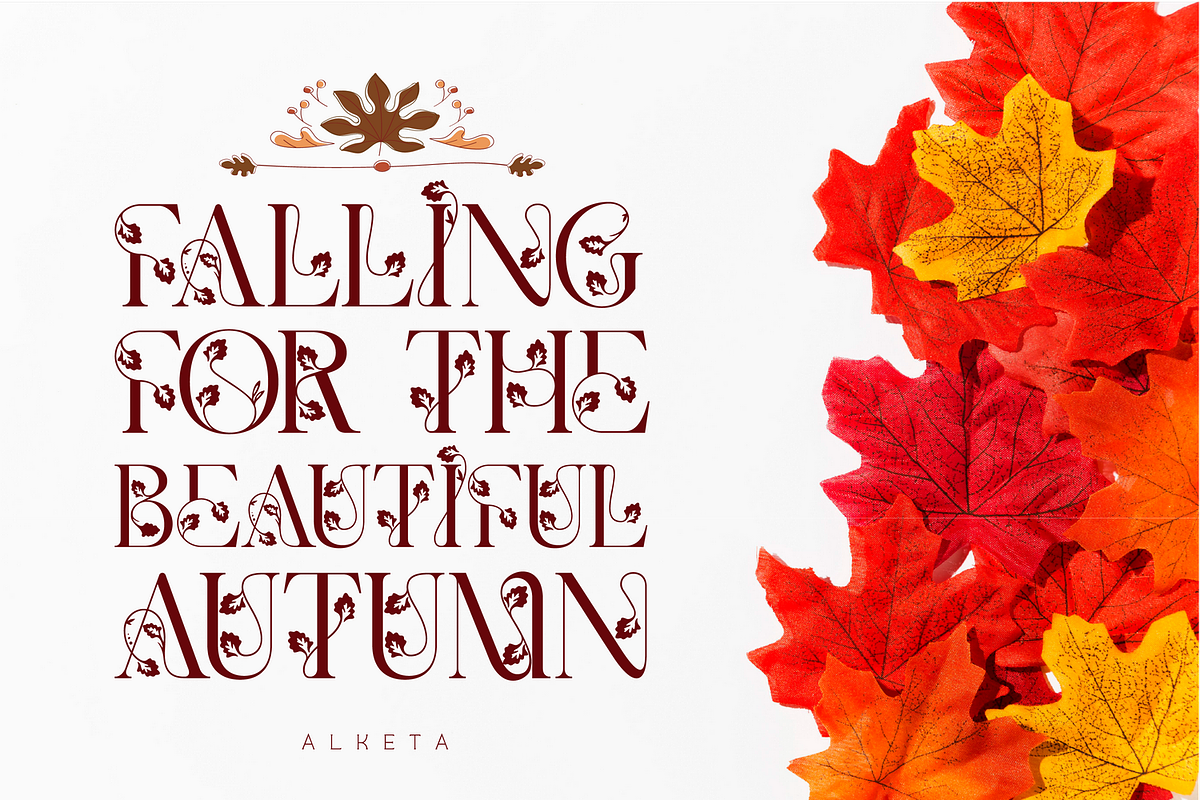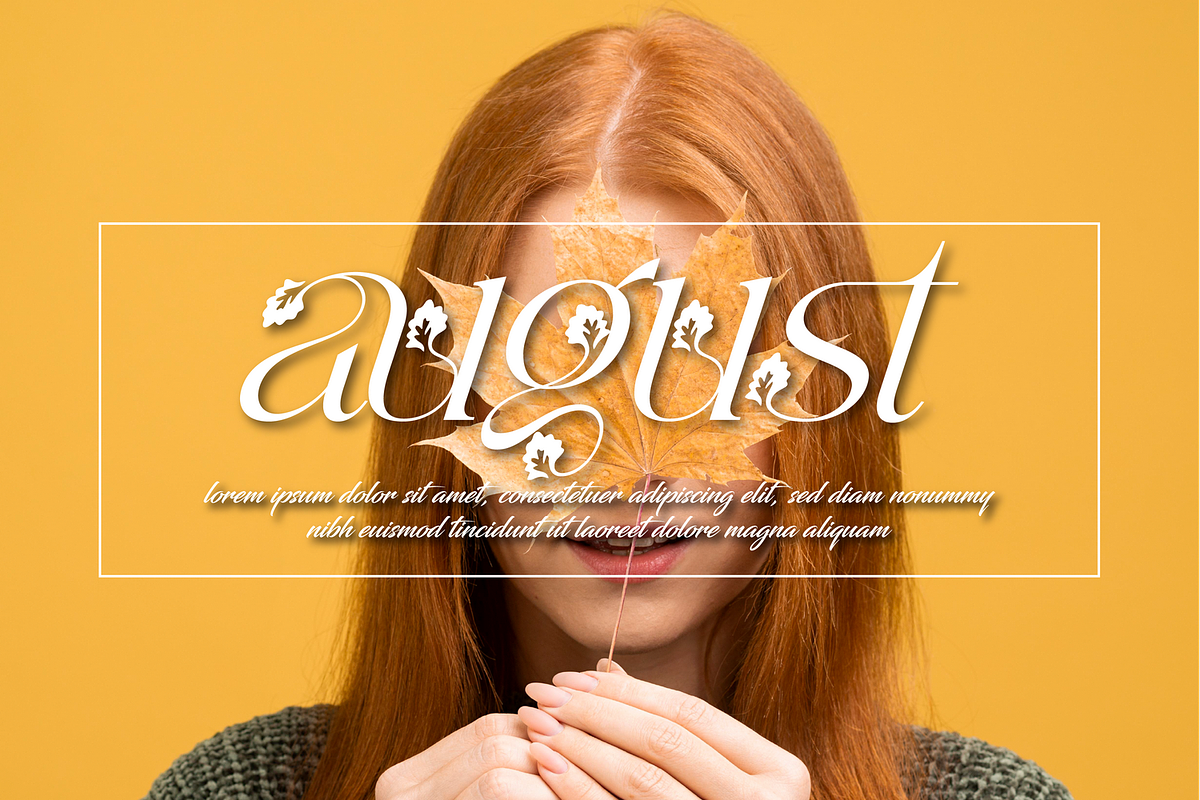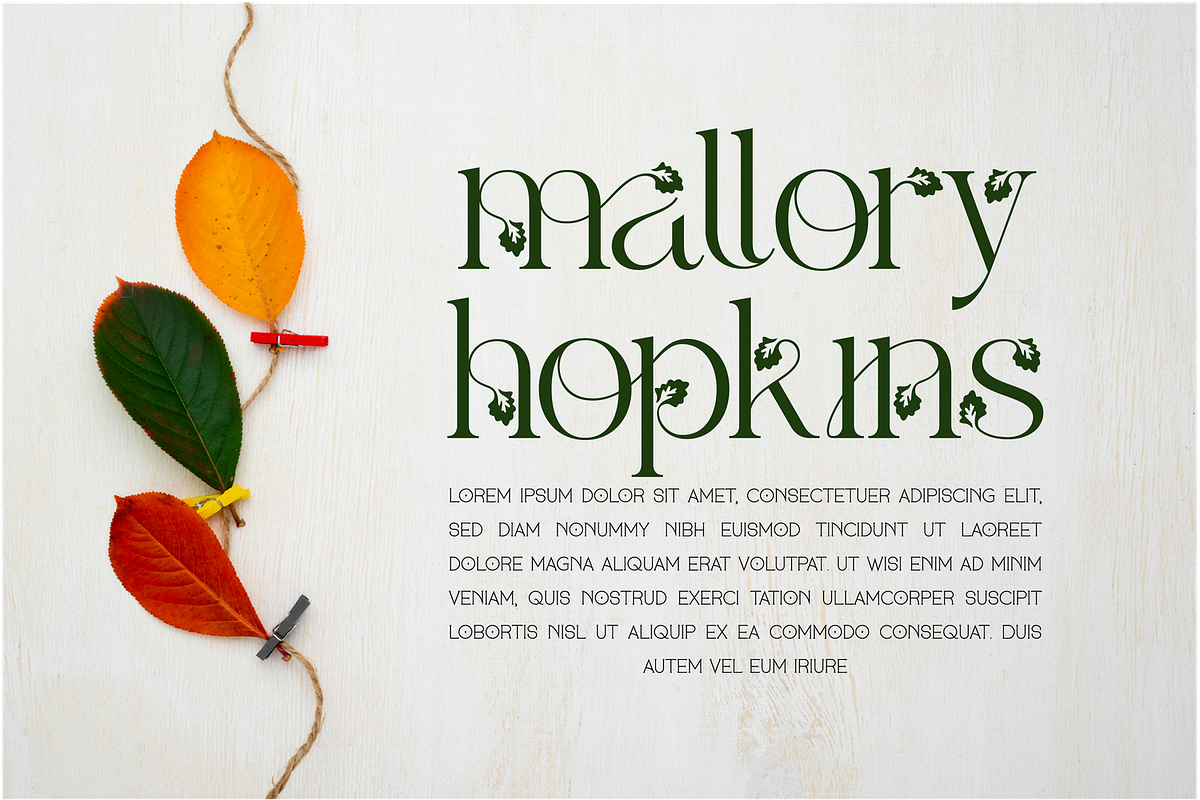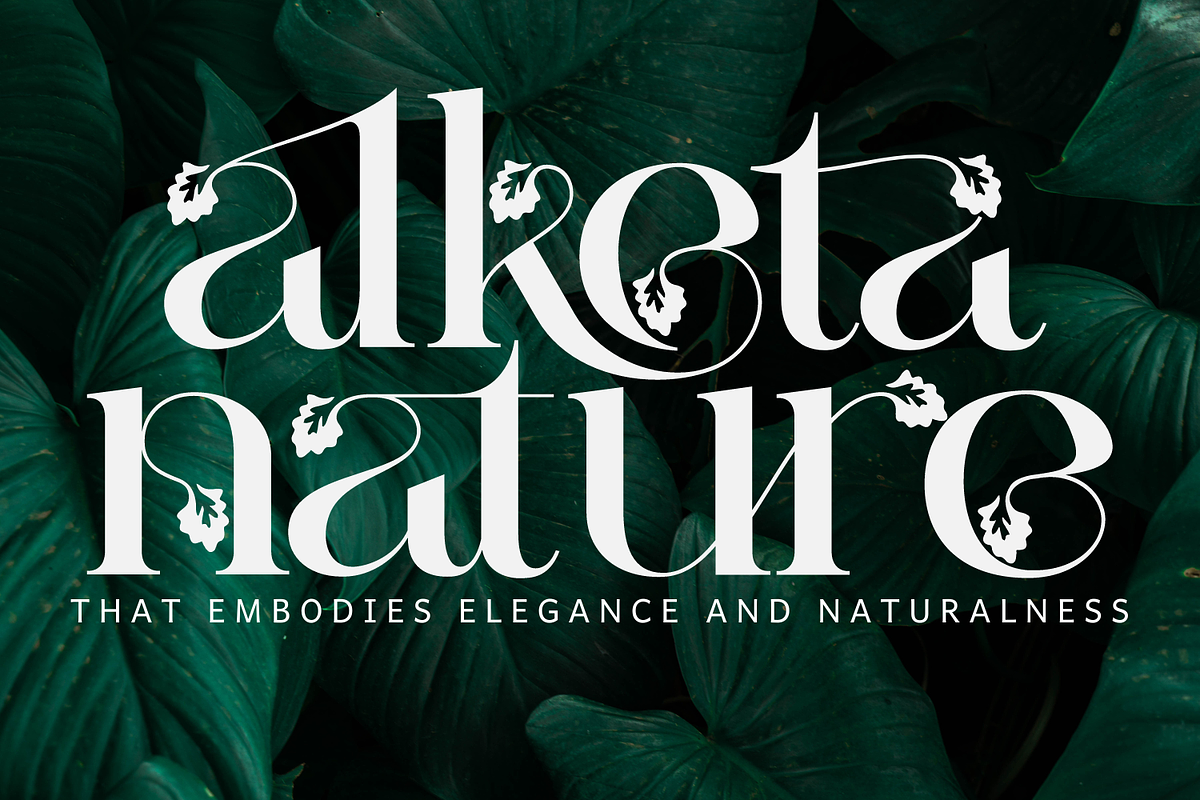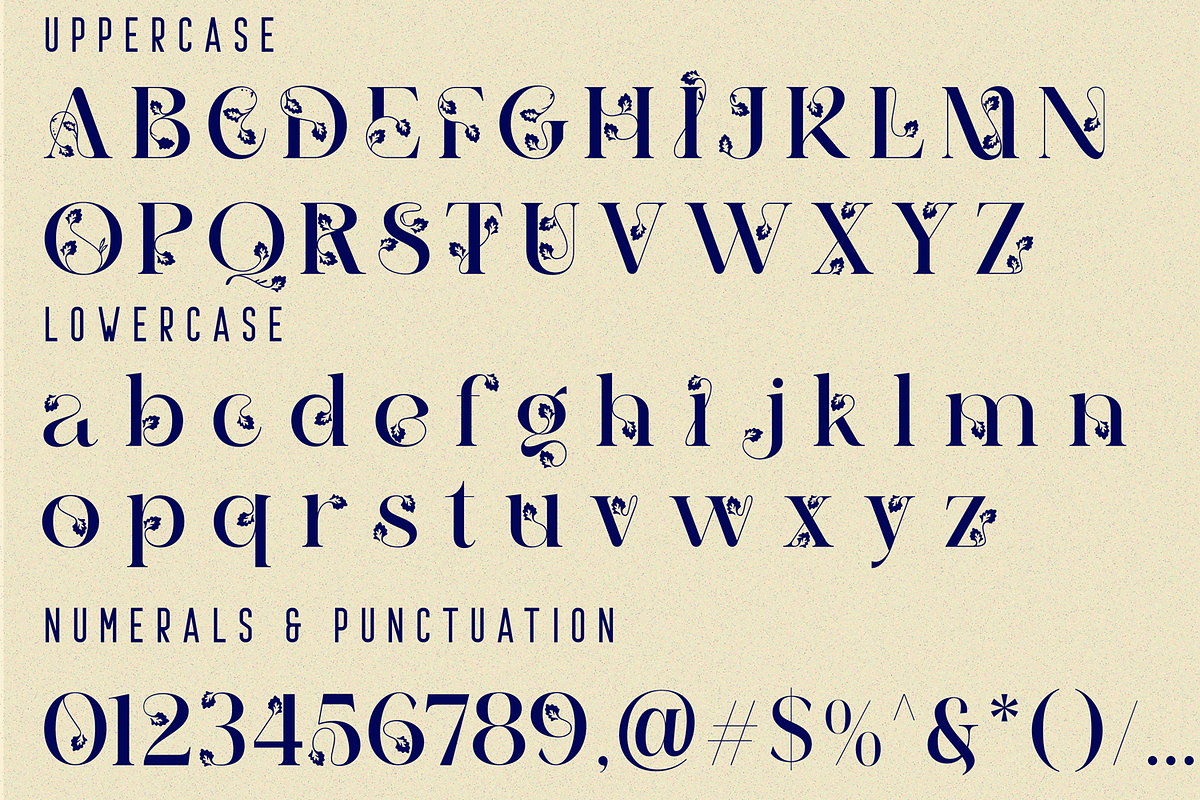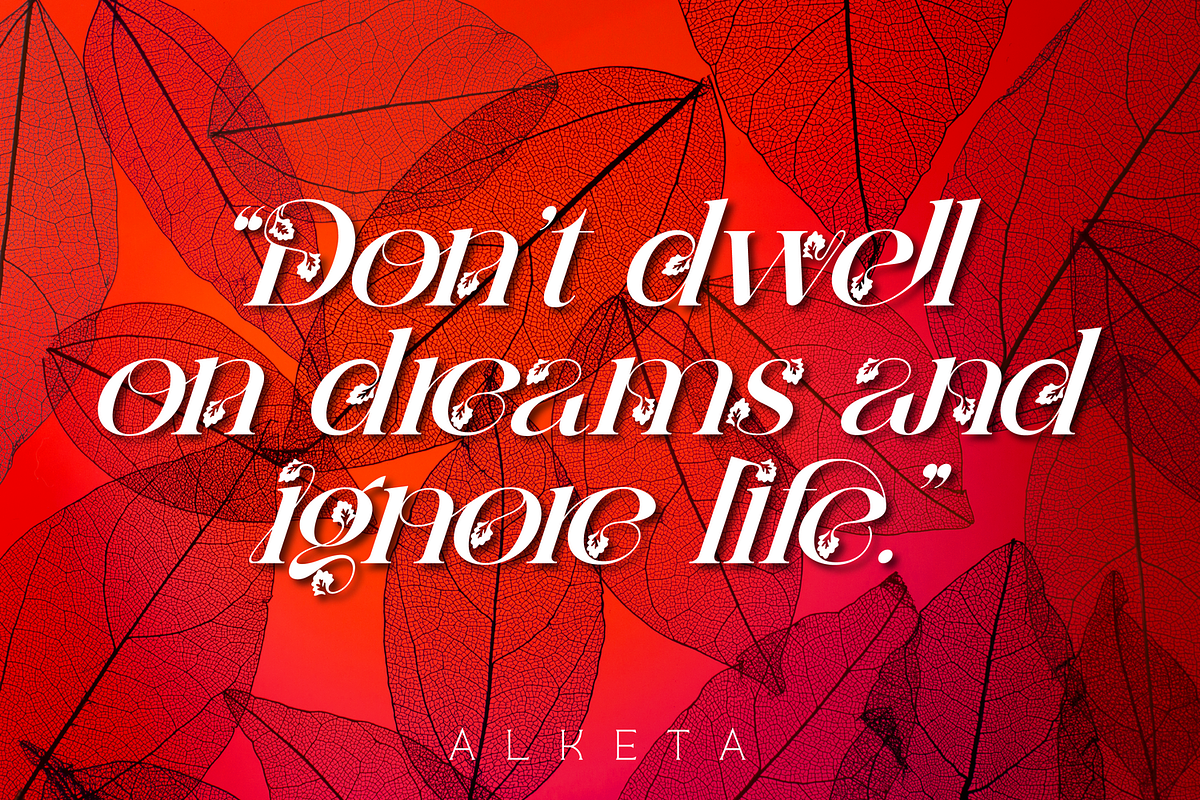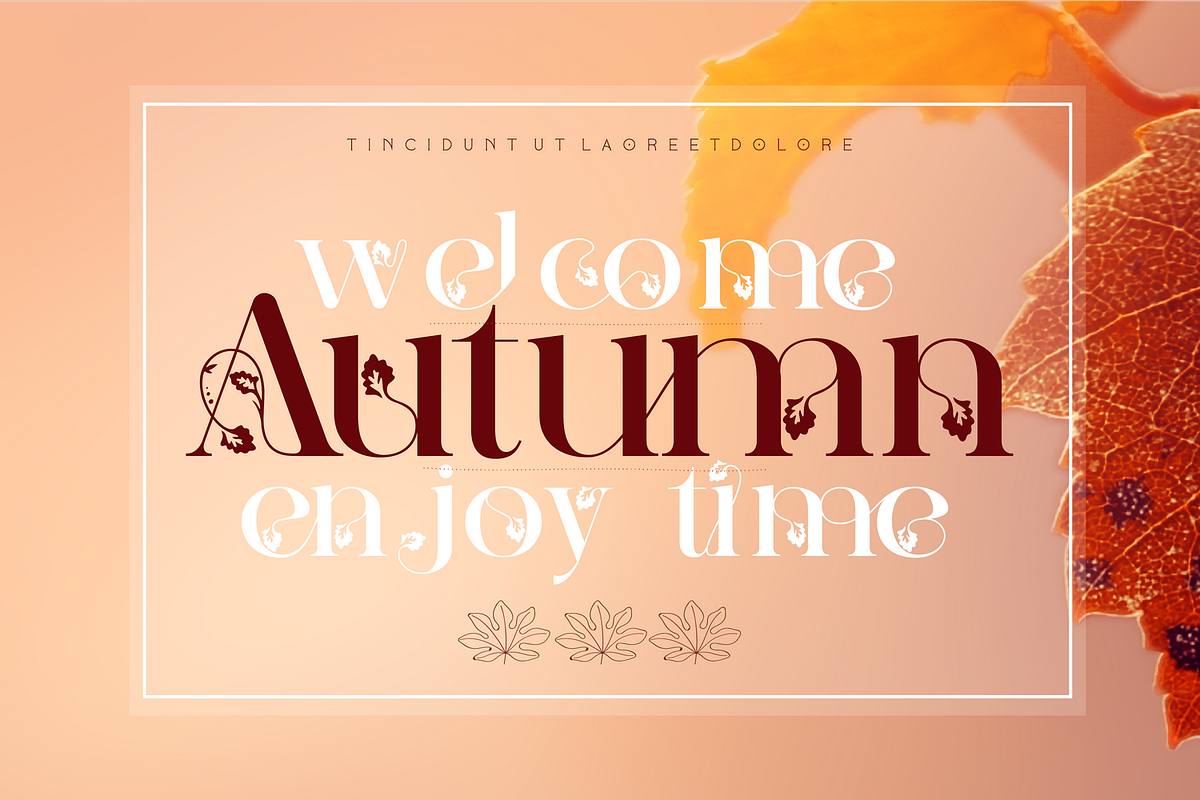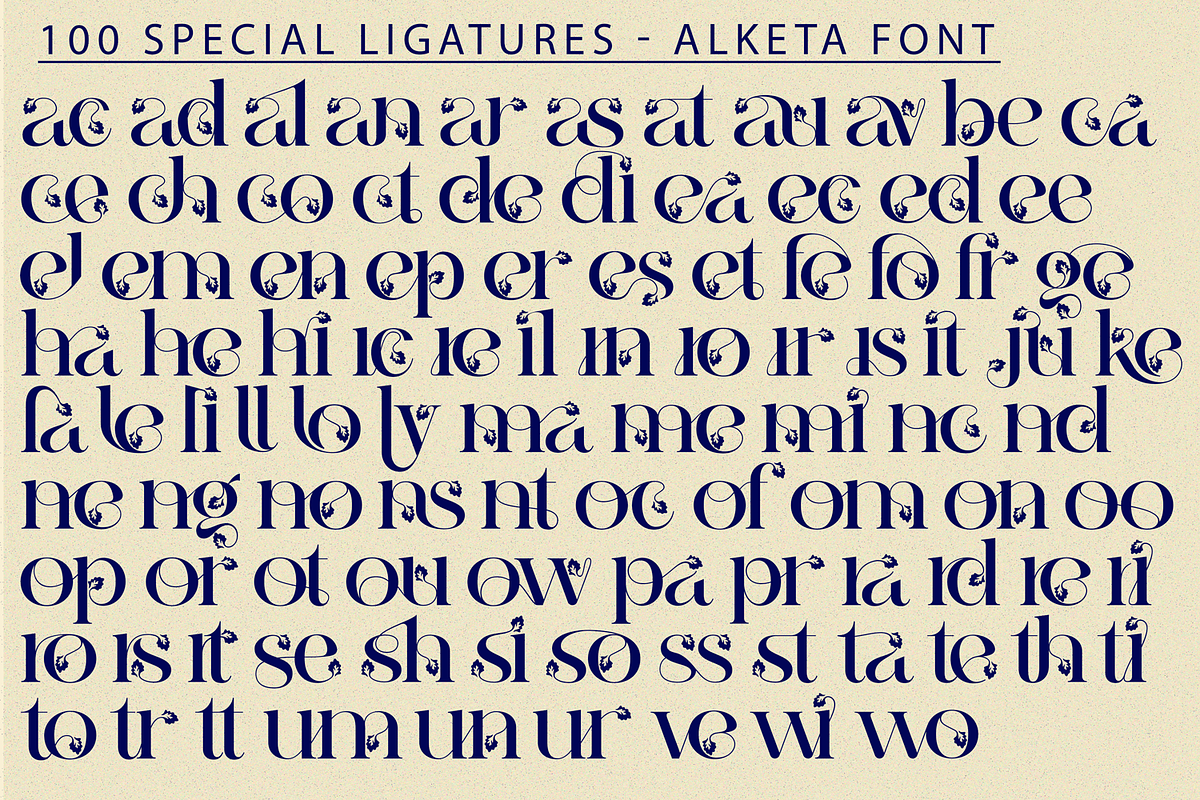
Alketa Nature Font
Alketa nature font - a delicate floral font with flowers and leaves, that features a nature concept with leaf swashes. It's an elegant and feminine font suitable for all kinds of headlines and decorative purpouses. It features a unique style and will add a friendly feel to your upcoming projects. Get inspired by its authentic feel and use it to create beautiful poster, product packaging or logo and many more!
Alketa was built with OpenType features and includes 100 ligatures, alternate, numbers, punctuation, and it also supports other languages.
ac ad al an ar as at au av be ca ce ch co ct de di ea ec ed ee el em en ep er es et fe fo fr ge ha he hi ho ie ic il in io ir is it ju ke la le li ll lo ly ma me mi nc nd ne ng no nt ns oc of om on oo op or ot ou ow pa pr ra rd re ri ro rs rt se sh si so ss st ta te th ti to tr tt um un ur ve wi wo